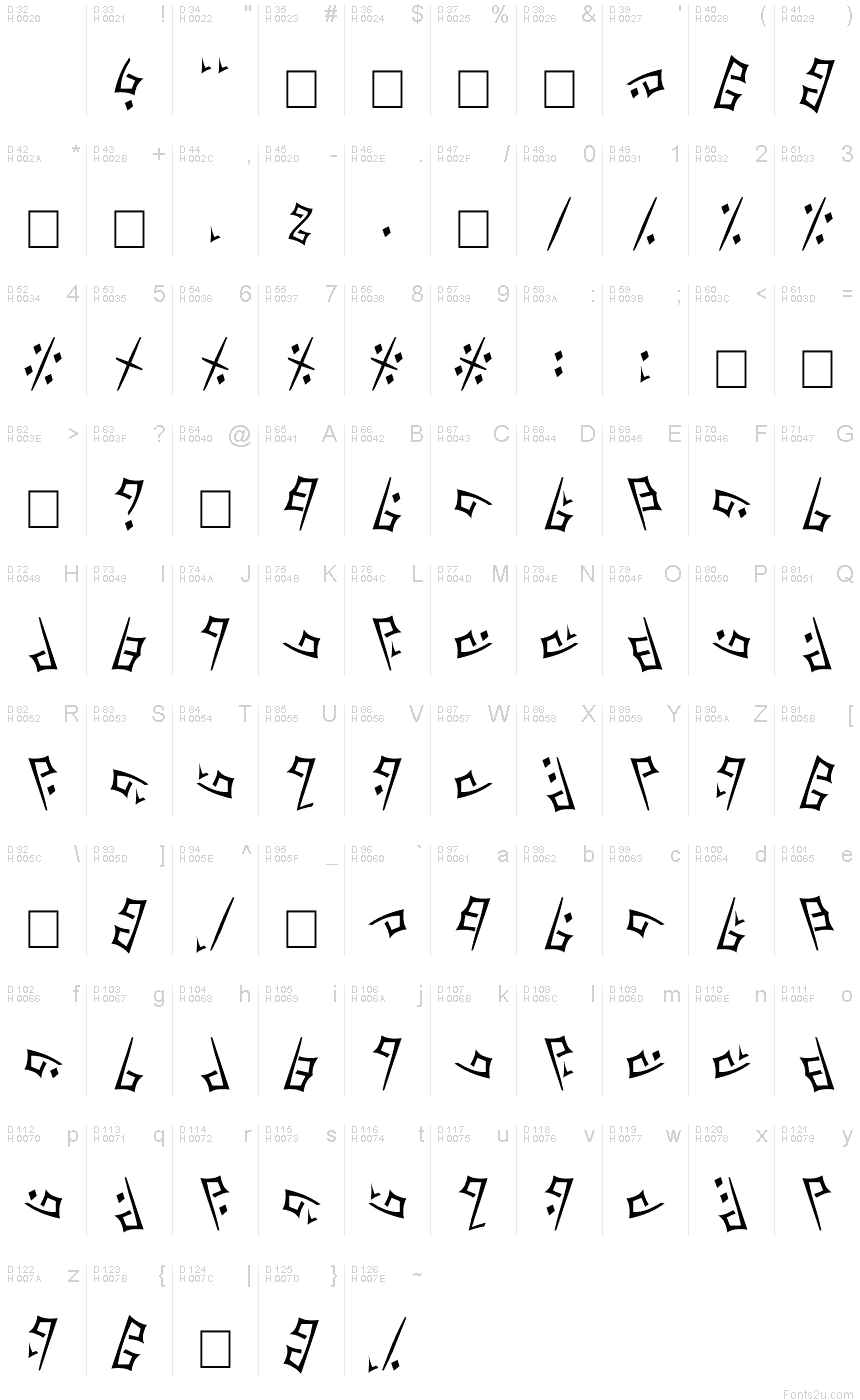
Drow Angular
Daniel U. Thibault
A freeware fantasy font.
The original glyphs supplied by the on-line Elven Kingdom of Arèthane (http://www.angelfire.com/rpg2/vortexshadow/arethanehome.html; follow the link to the Elven Alphabet and Dictionary) were very rounded in appearance; this version tries to match more closely the spiky look of TSR's Drow Runes. The Arèthane character mapping was extensively modified and a large number of glyphs added (digits, punctuation, etc.).
The term Drow originally designated a tiny elf which lived in caves and forged magic metal work (Scottish mythology). The term was used by E. Gary Gygax and TSR to designate an underground dwelling, chiefly evil branch of the elves --and this is the version that took hold of contemporary imaginations. The terms Drow and "Dark Elf" are interchangeable.